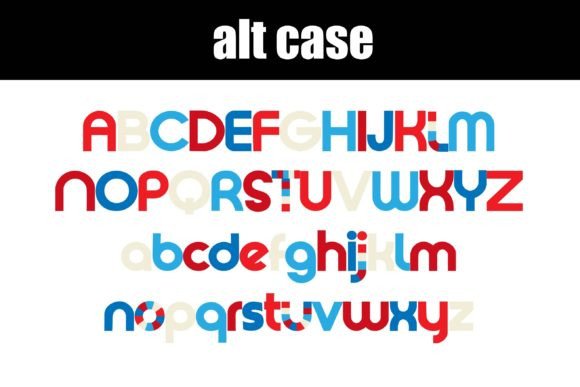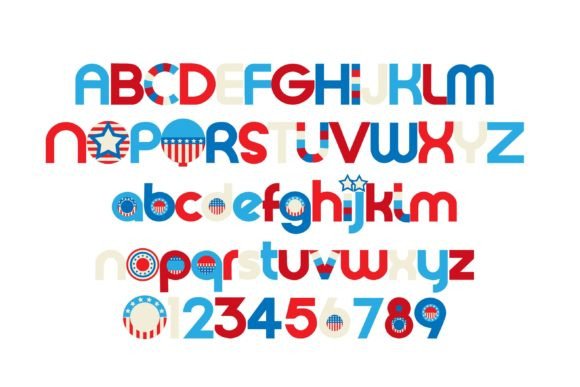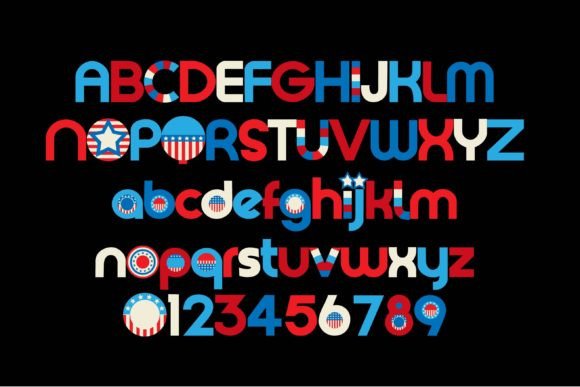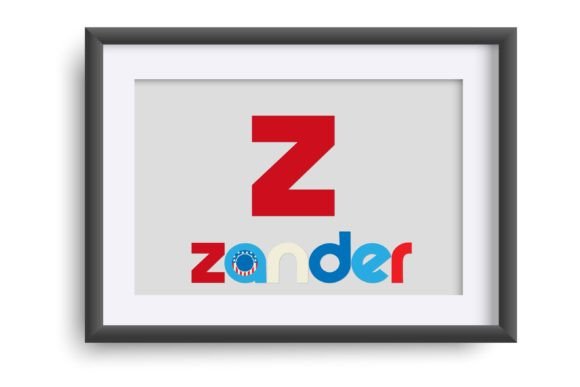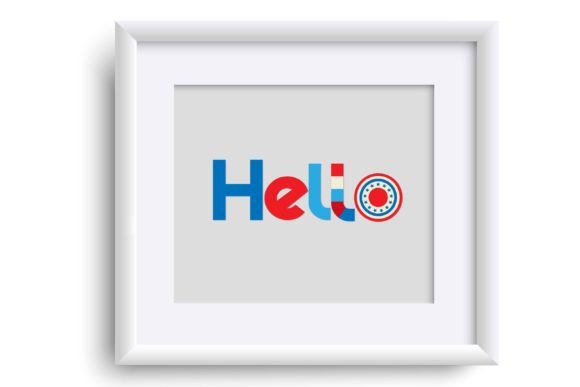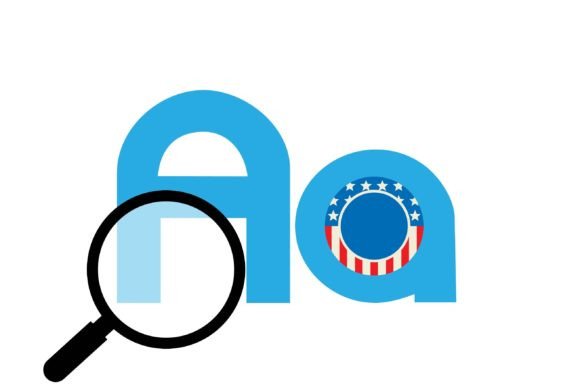
Introducing American Groove Font: A Patriotic Masterpiece for Designers and Crafters
Are you looking for a font that screams patriotism and retro vibes? Look no further than the American Groove Font! This stunning full-color font features a retro design in a patriotic color palette that’s perfect for titles, displays, posters, and more. In this article, we’ll dive into the features and benefits of this incredible font, and explore how you can make the most of it in your designs.
A Font that’s as American as Apple Pie
The American Groove Font is a unique and eye-catching font that’s sure to make your designs stand out. With its retro font style and patriotic color palette, it’s the perfect choice for designers and crafters who want to add a touch of American flair to their work. Whether you’re creating a poster for a Fourth of July celebration or a craft project for a patriotic holiday, this font is sure to impress.
What Makes American Groove Font So Special?
So, what sets the American Groove Font apart from other fonts on the market? Here are just a few of its standout features:
- Full-color design: Unlike traditional fonts that are limited to a single color, the American Groove Font features a stunning full-color design that’s sure to catch the eye.
- Patriotic color palette: The font’s patriotic color palette is perfect for designers and crafters who want to add a touch of American flair to their work.
- Alt case with additional colors: The font also features an alt case with additional colors that can be accessed through your system or Silhouette’s glyph map.
The Benefits of Full-Color SVG Fonts
Full-color SVG fonts like the American Groove Font offer a range of benefits for designers and crafters. Here are just a few:
- Increased visual impact: Full-color fonts like the American Groove Font offer a level of visual impact that’s impossible to achieve with traditional fonts.
- Perfect for crafters and designers: Full-color SVG fonts are perfect for crafters and designers who want to add a professional touch to their work.